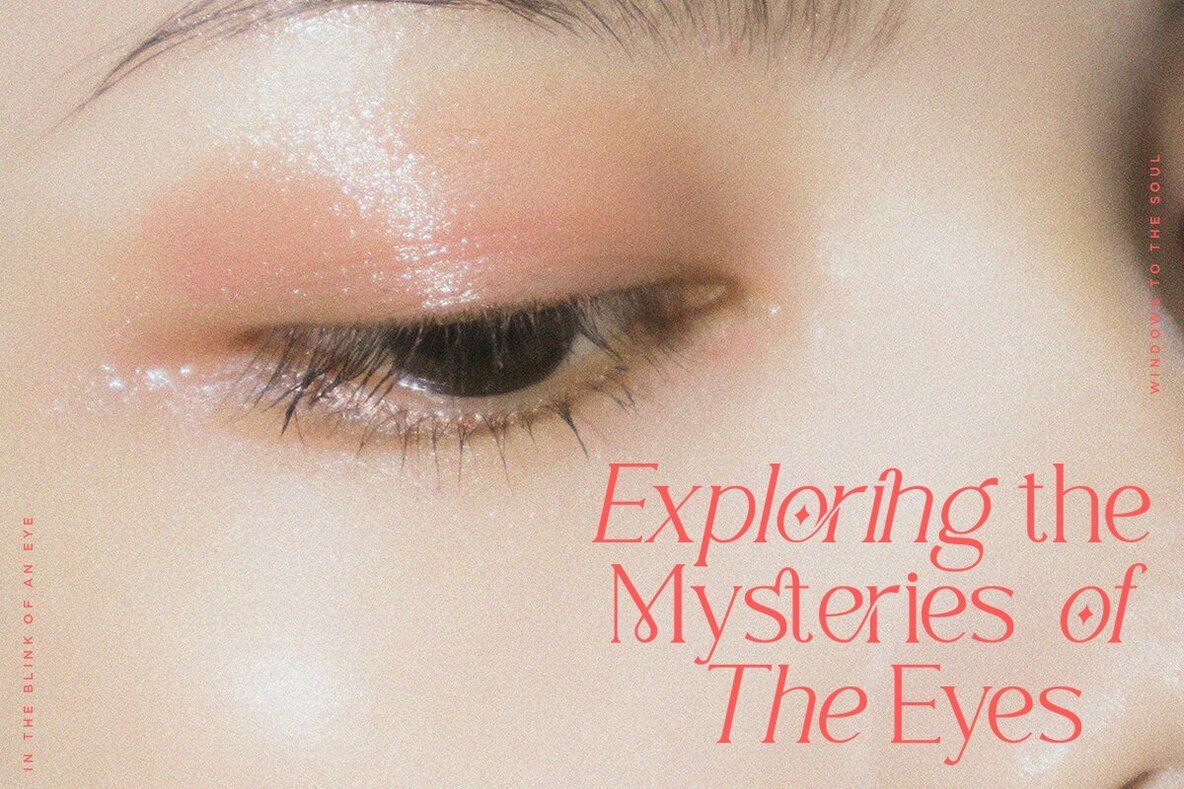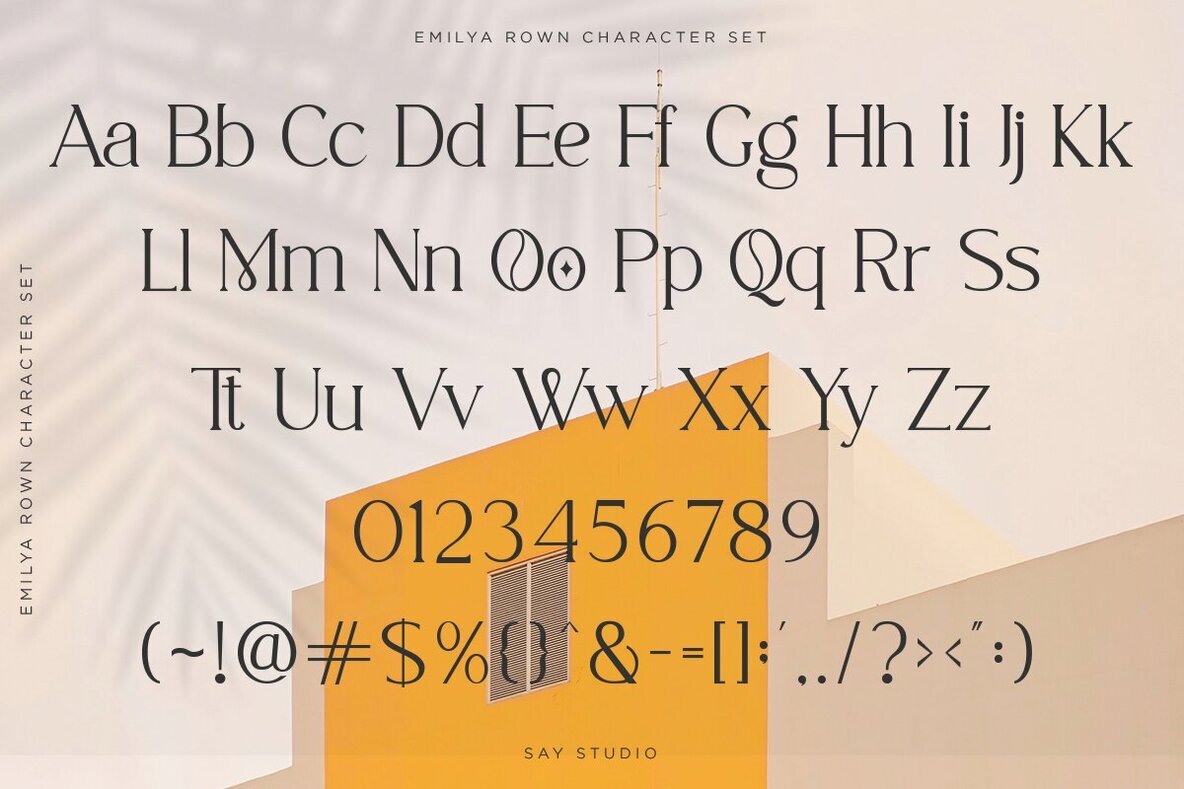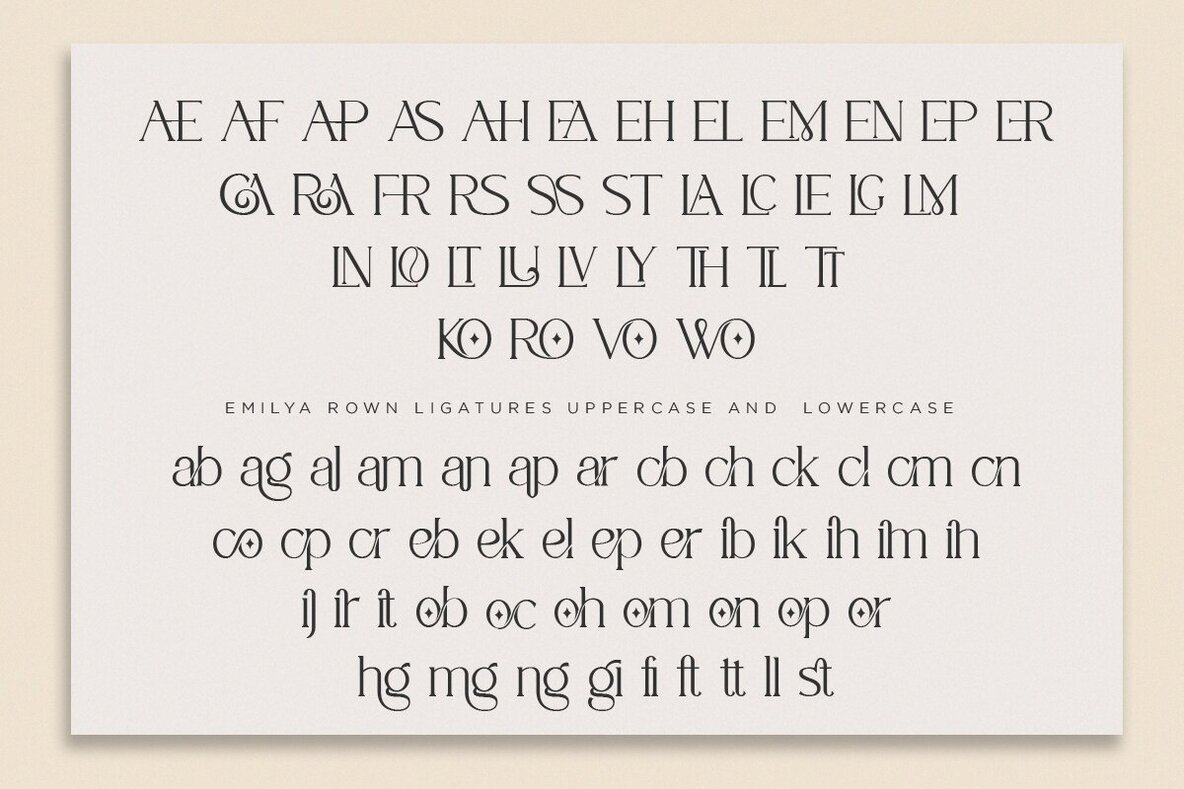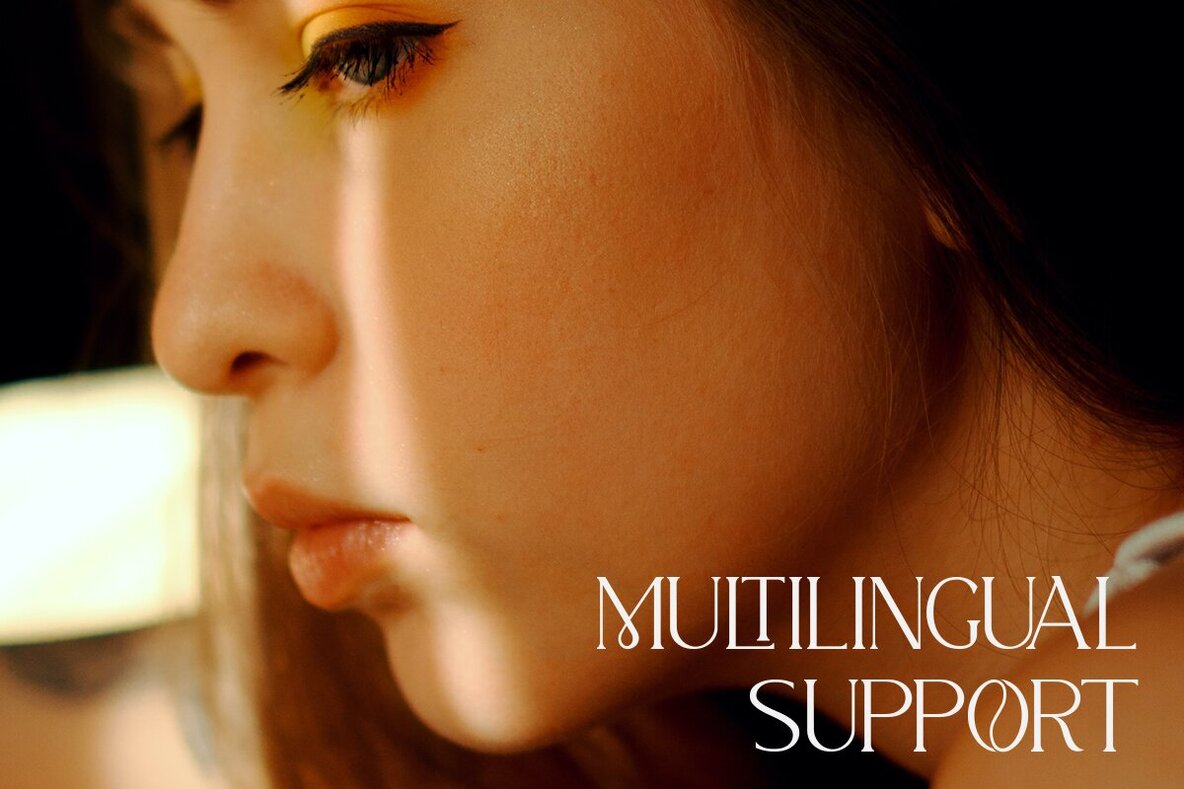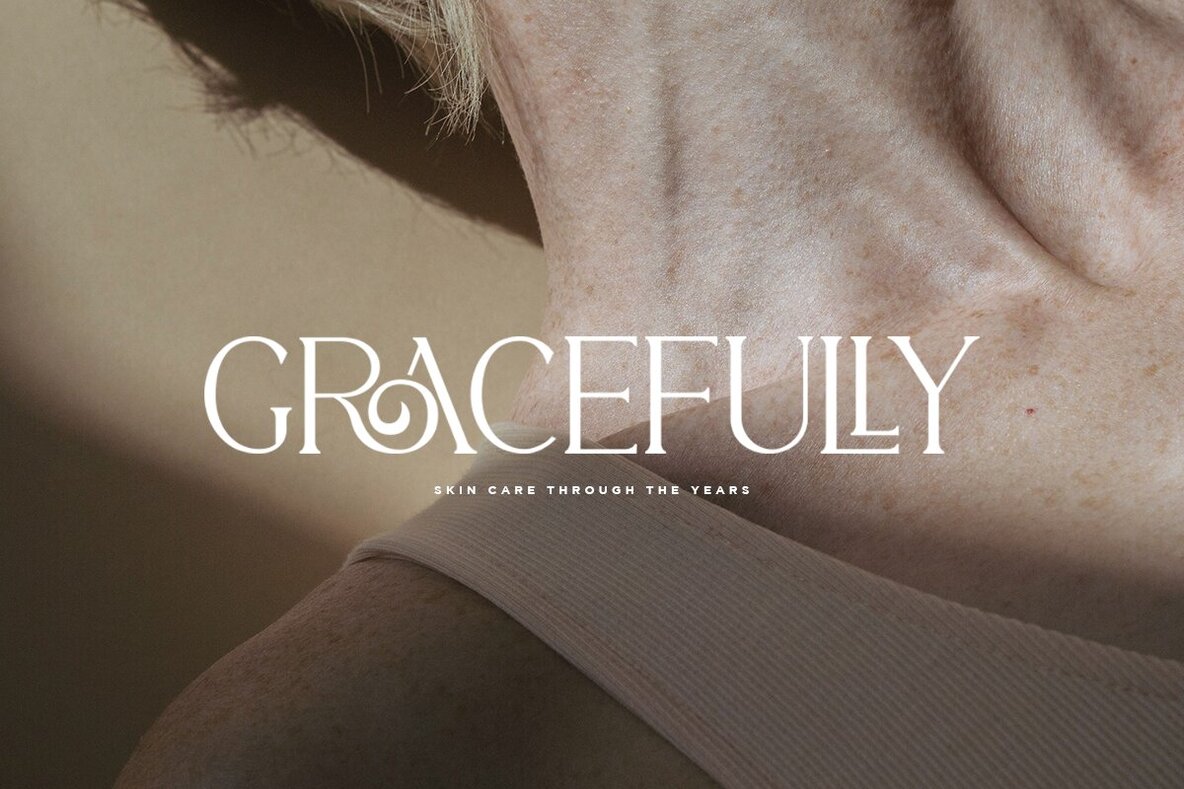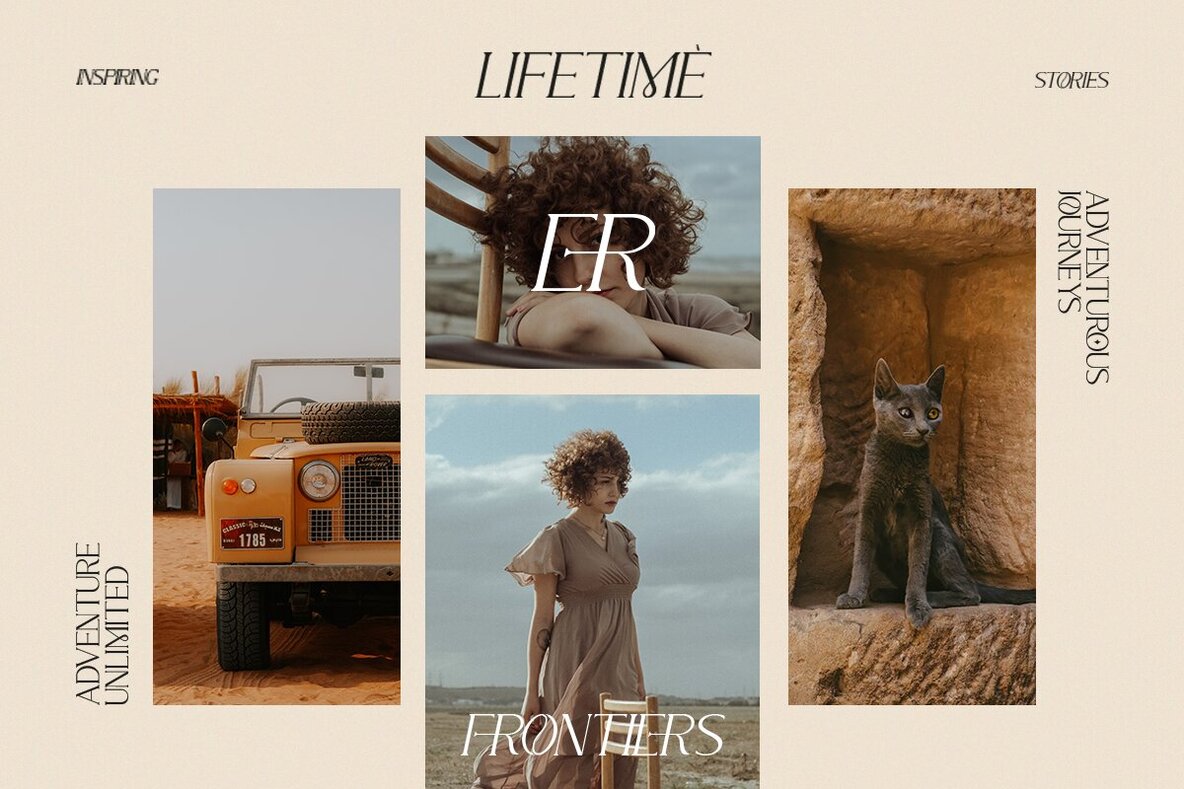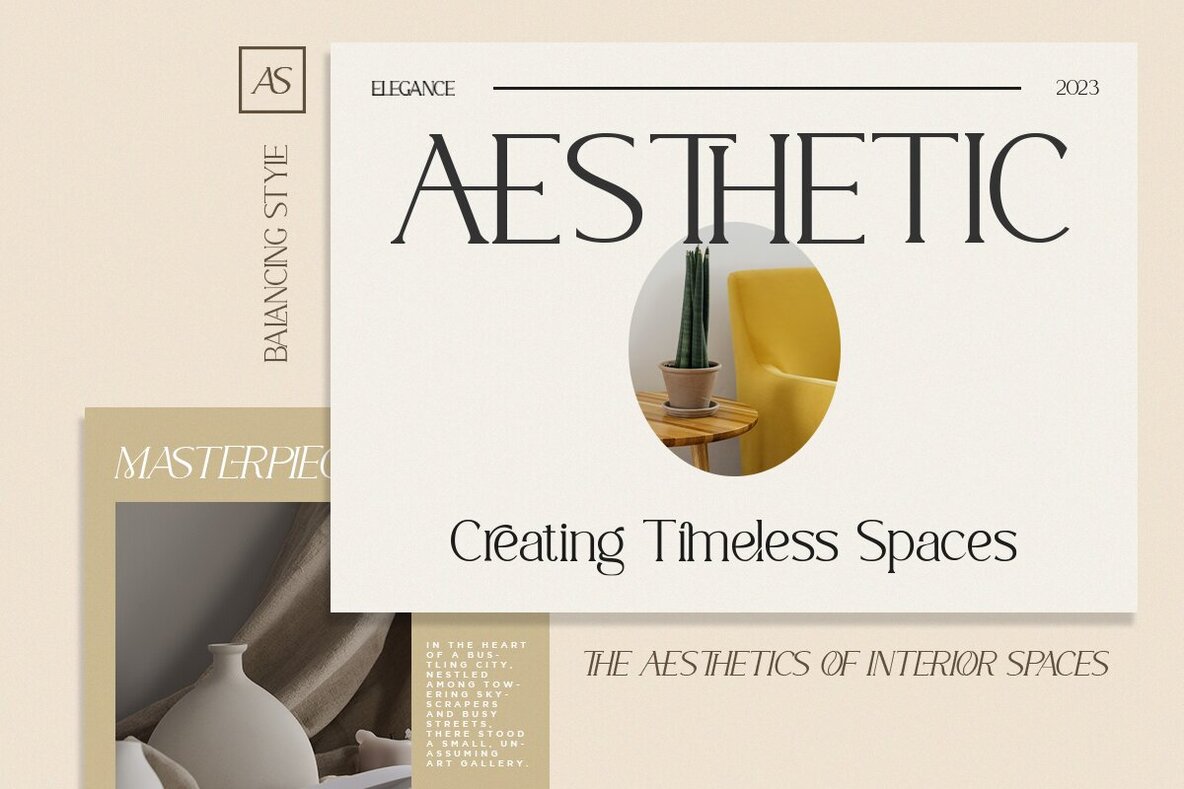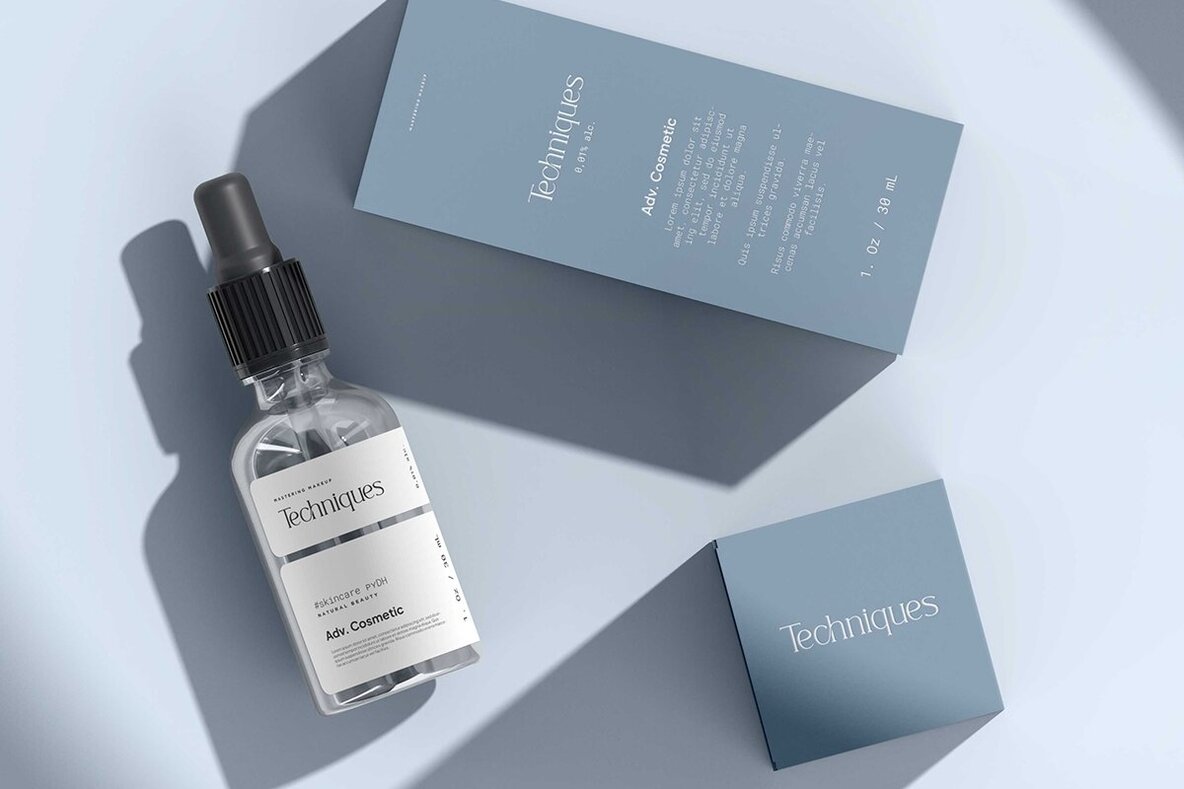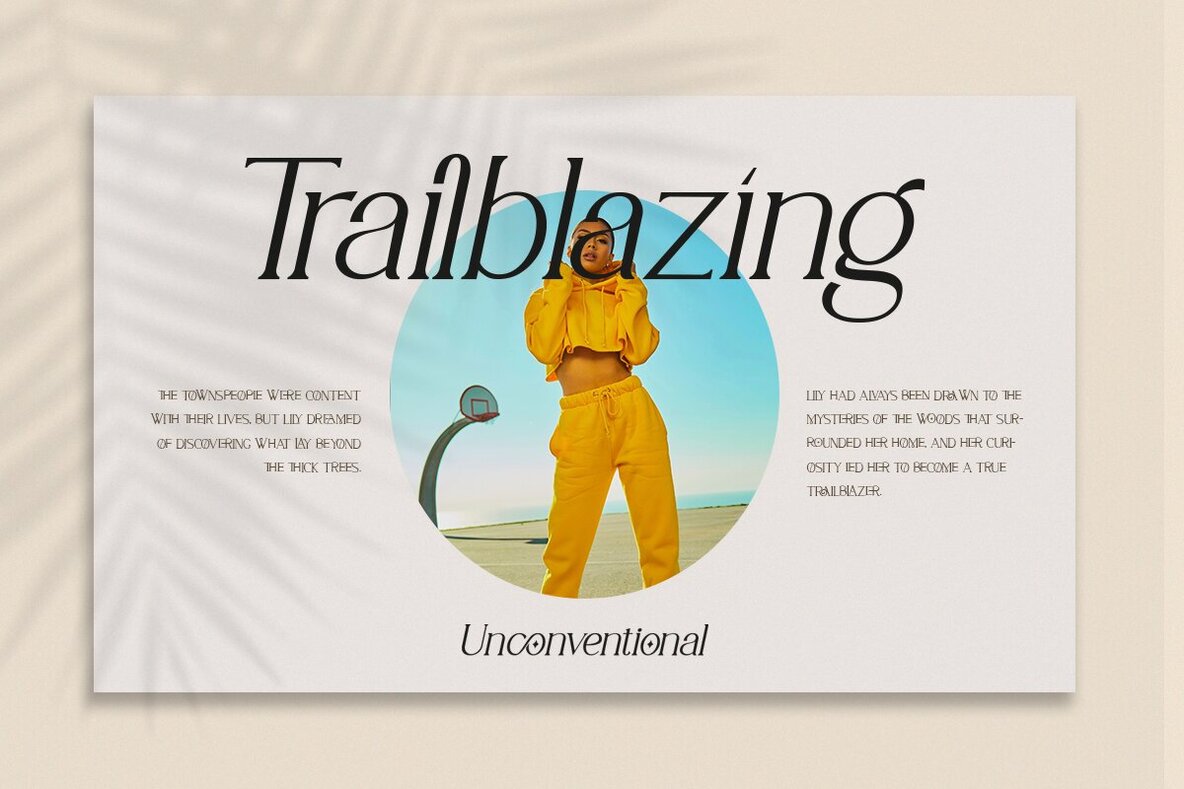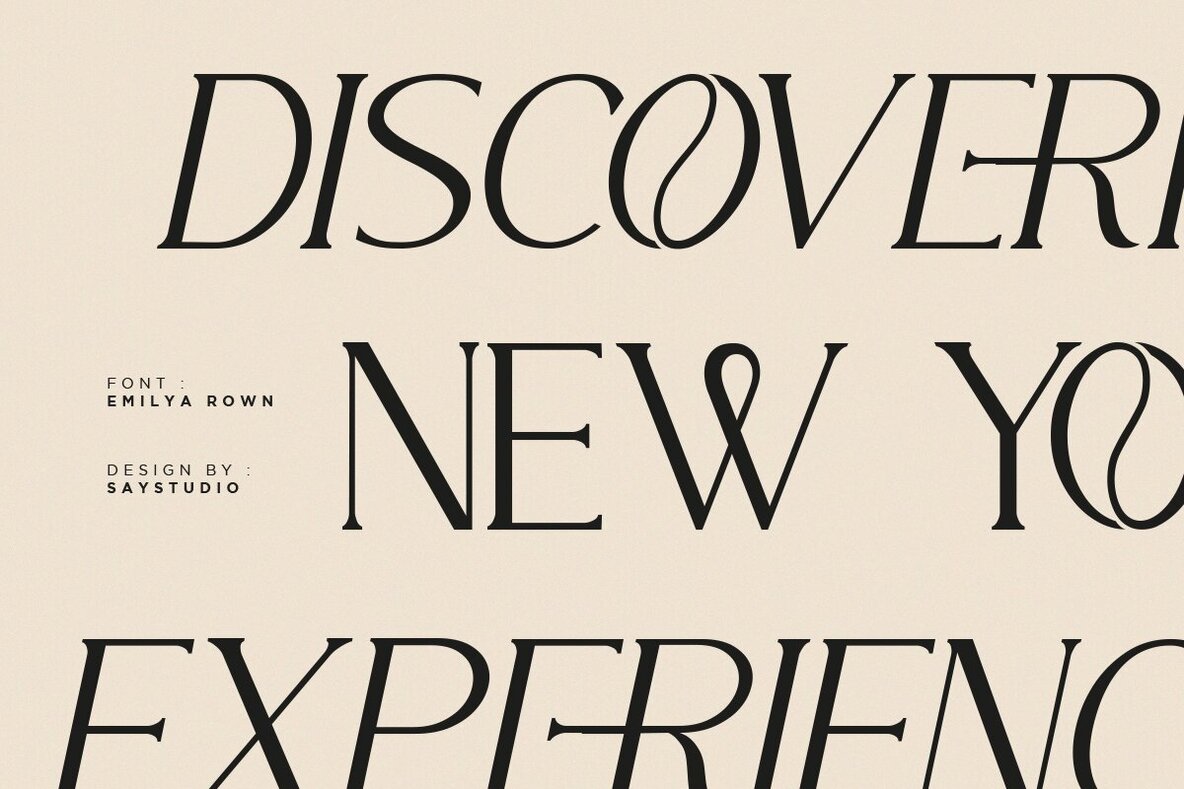
Emilya Rown Font
Emilya Rown is a refined serif font inspired by the elegance of the Art Deco era, seamlessly blending a modern touch with timeless sophistication. This typeface is adorned with beautiful ligatures and versatile stylistic alternations, making it an exceptional choice for a wide range of design projects including branding, magazine layouts, logos, headlines, posters, packaging, and invitations.Emilya Rown: Classy Ligature Serif with Art Deco Flair